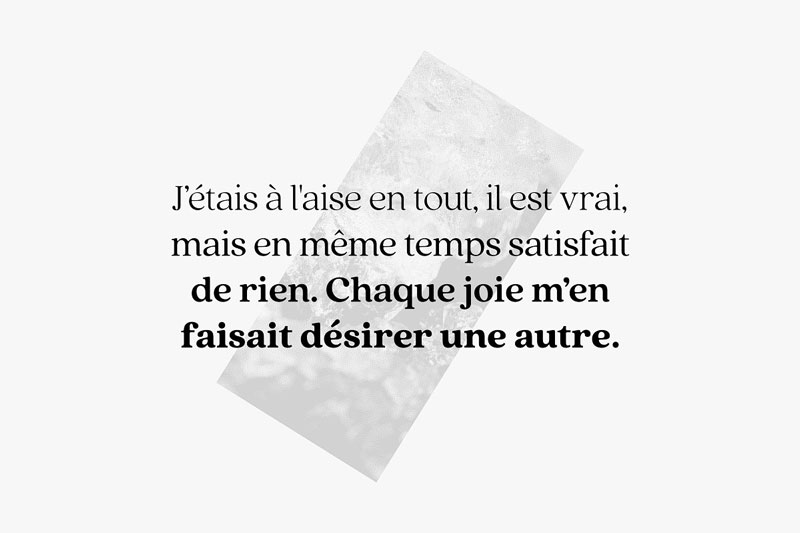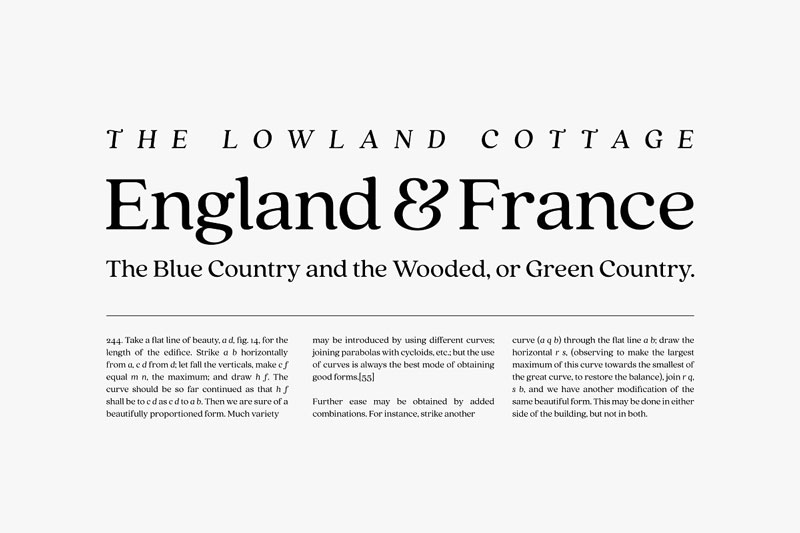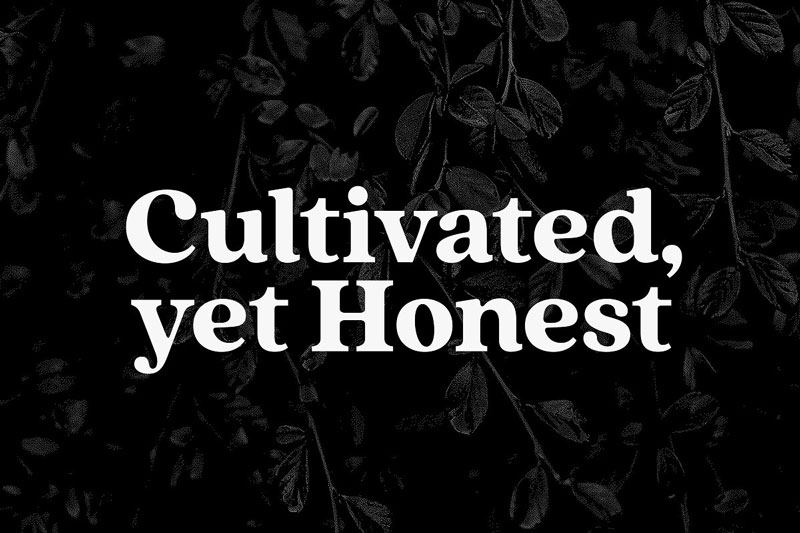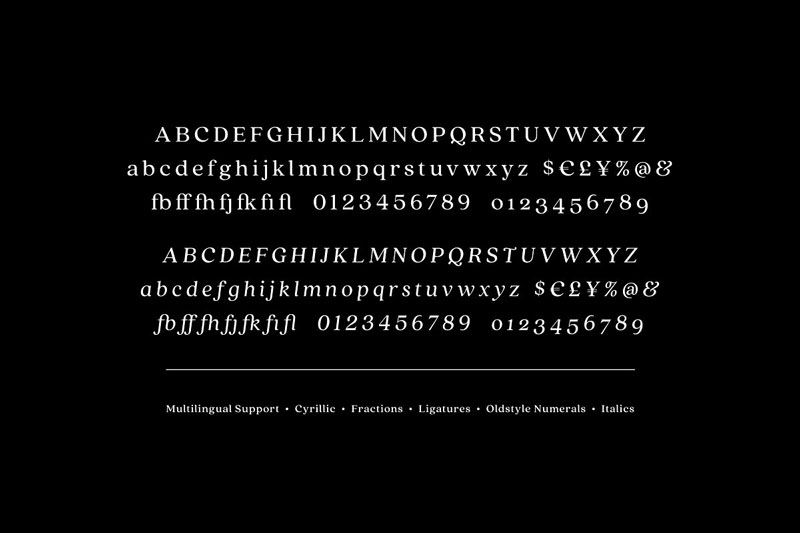
Quincy CF: Vintage Serif Font Family
Quincy C Vintage Serif Font Family
Quincy CF: Vintage Serif Font Family
Quincy’s warm letterforms, tall x-height and medium contrast provide a pleasant reading experience. Small variations and human touches add charm, allowing Quincy to double as a stately display font.
Recently updated to version 4, Quincy now has eight weights (up from five). Every letter has been thoughtfully refined and rebalanced, kerning and language support improved, and overall appearance enhanced with a smoother, flowing, unified new look.
Quincy Font Features
• Eight weights and italics
• OpenType features
• Latin and Cyrillic multilingual support